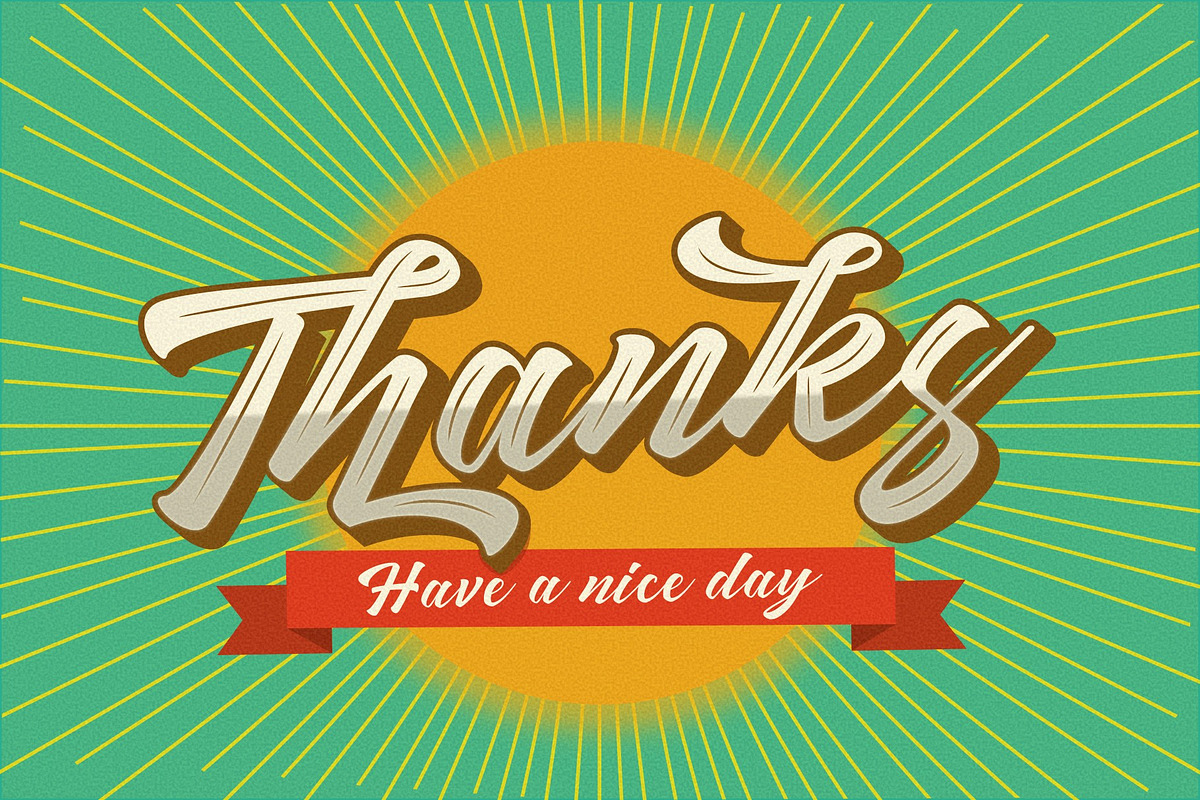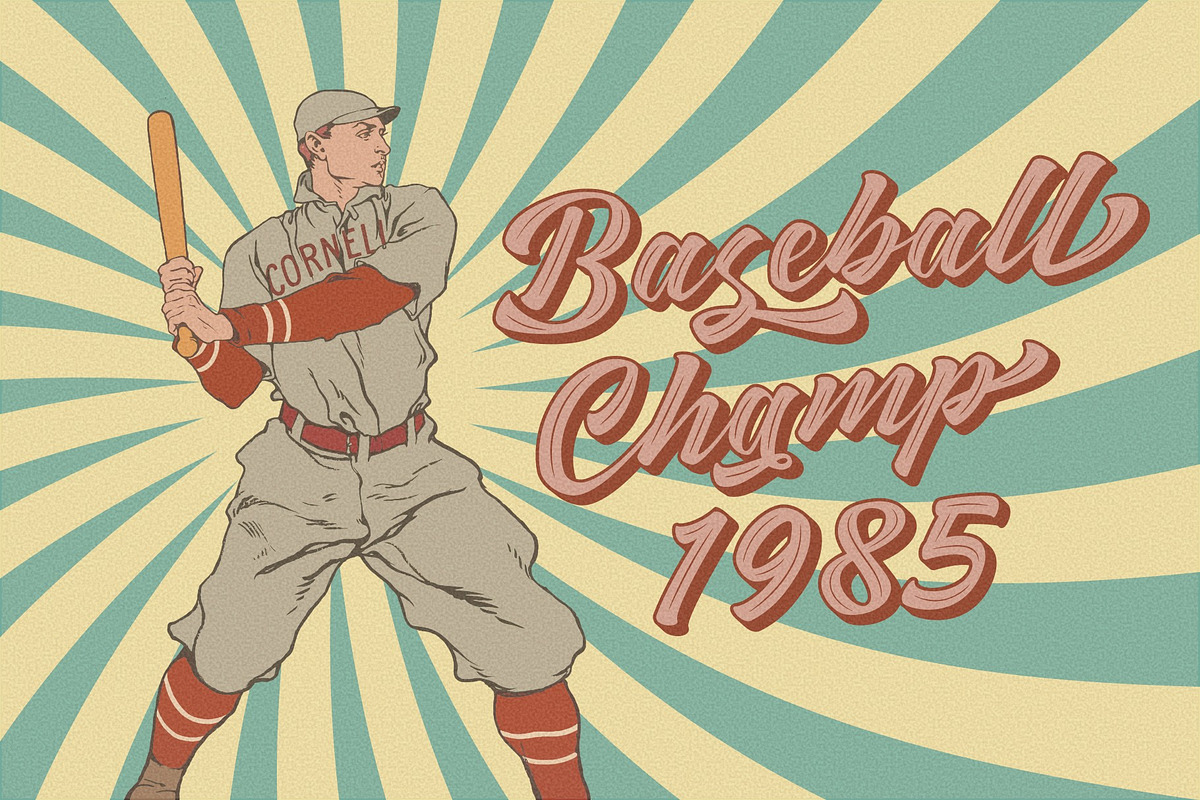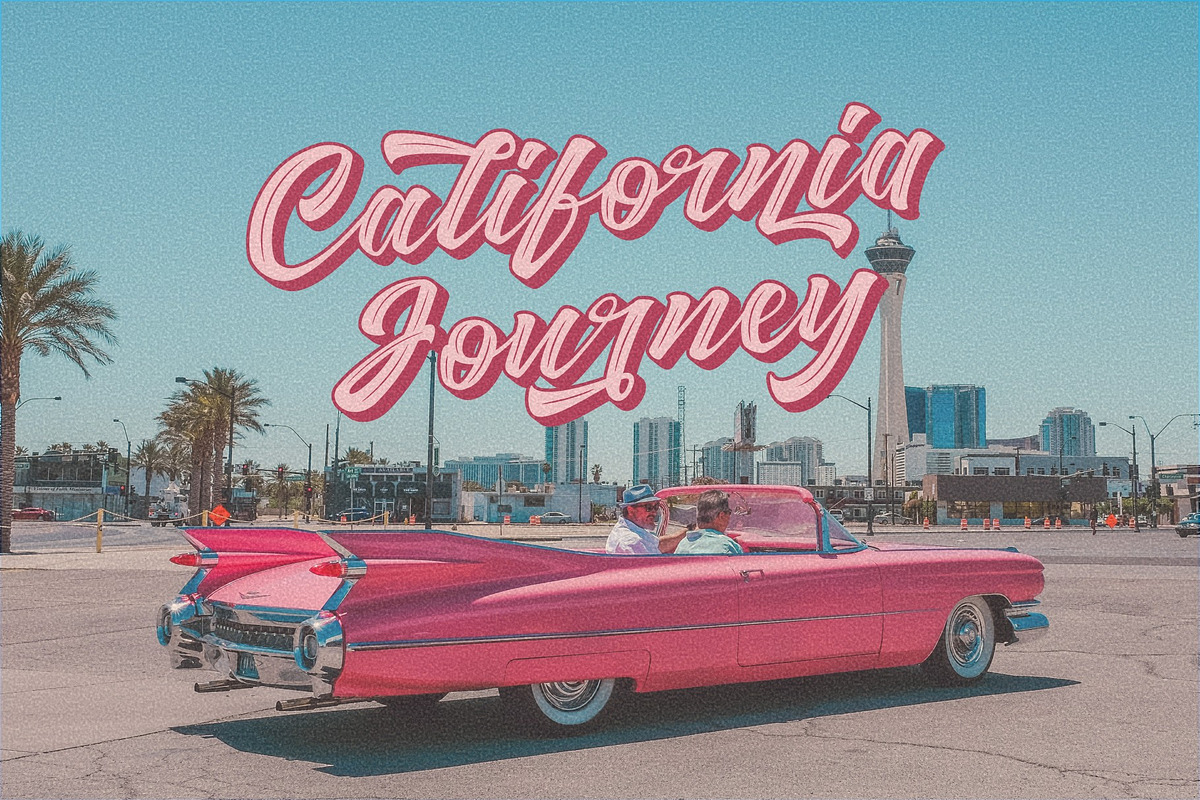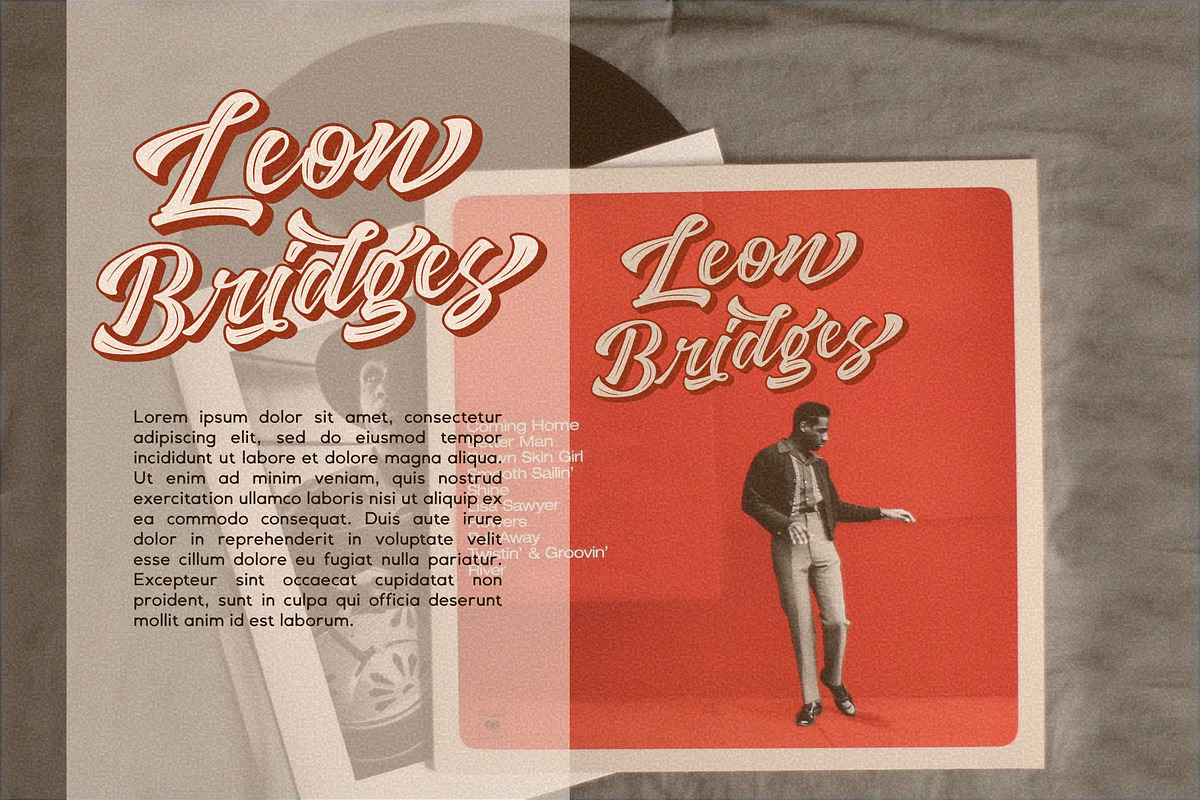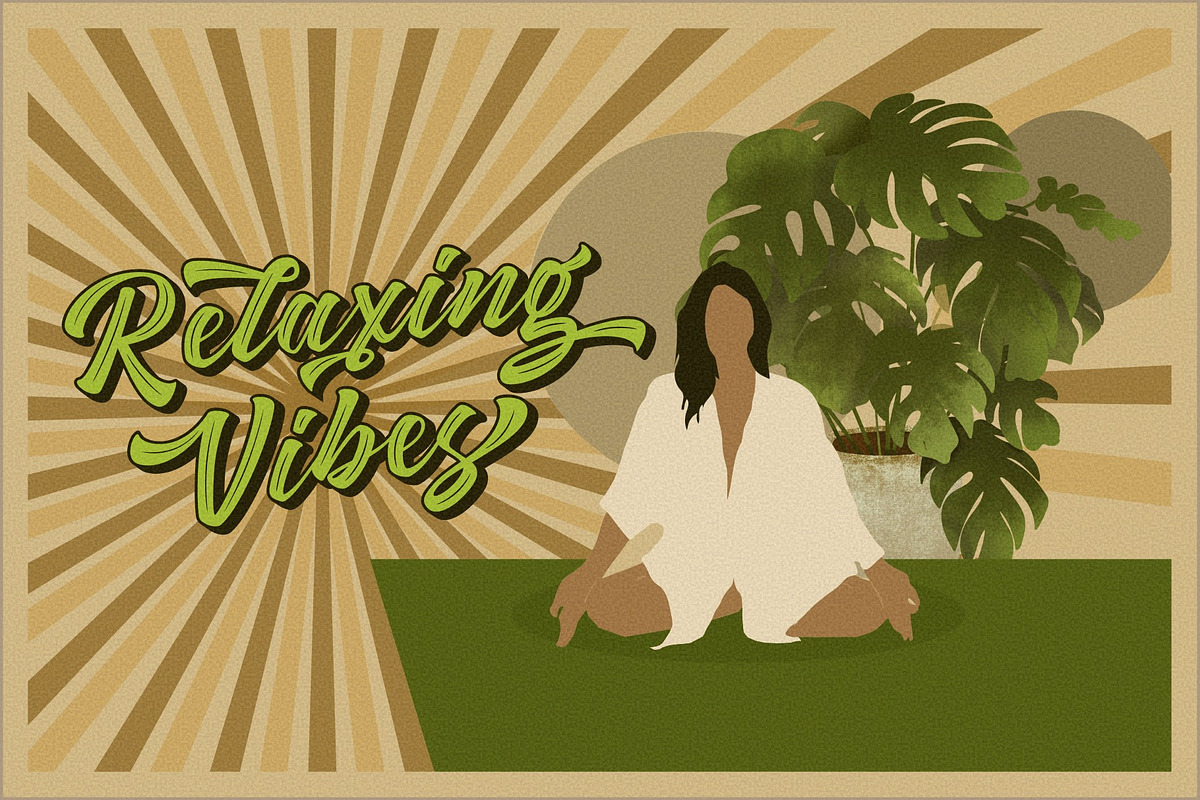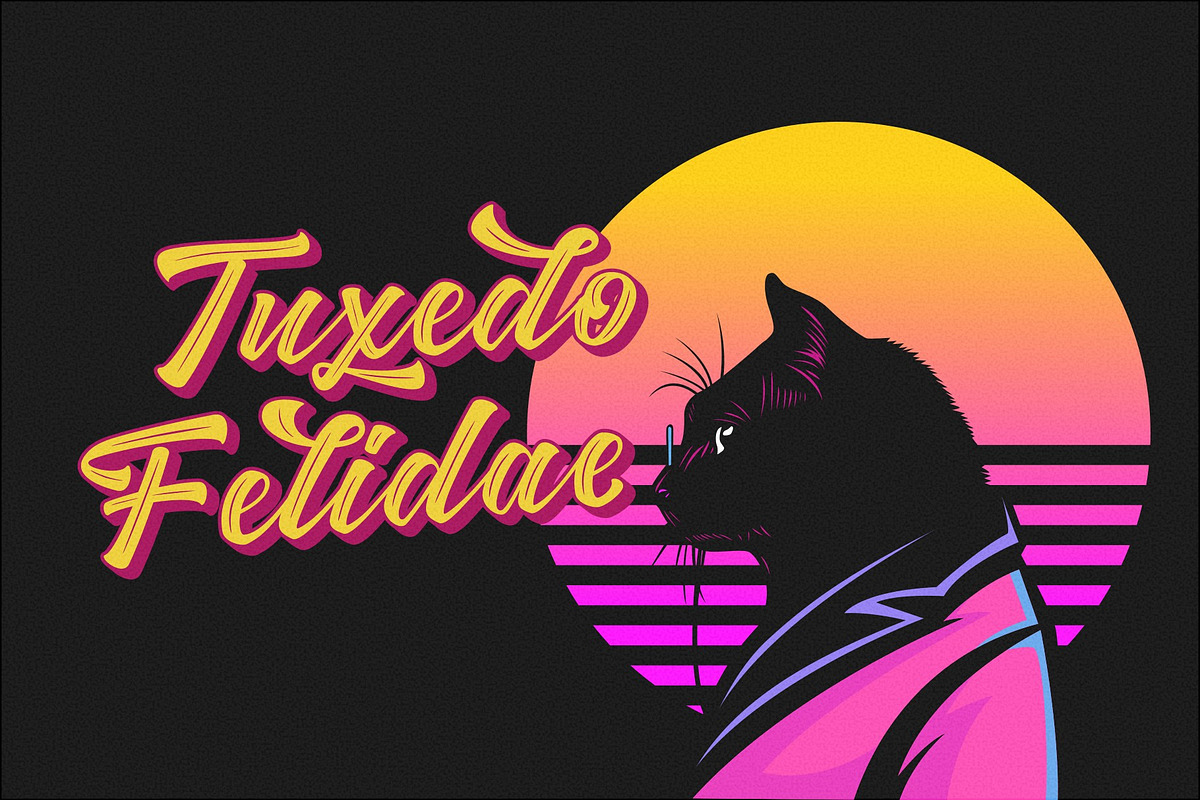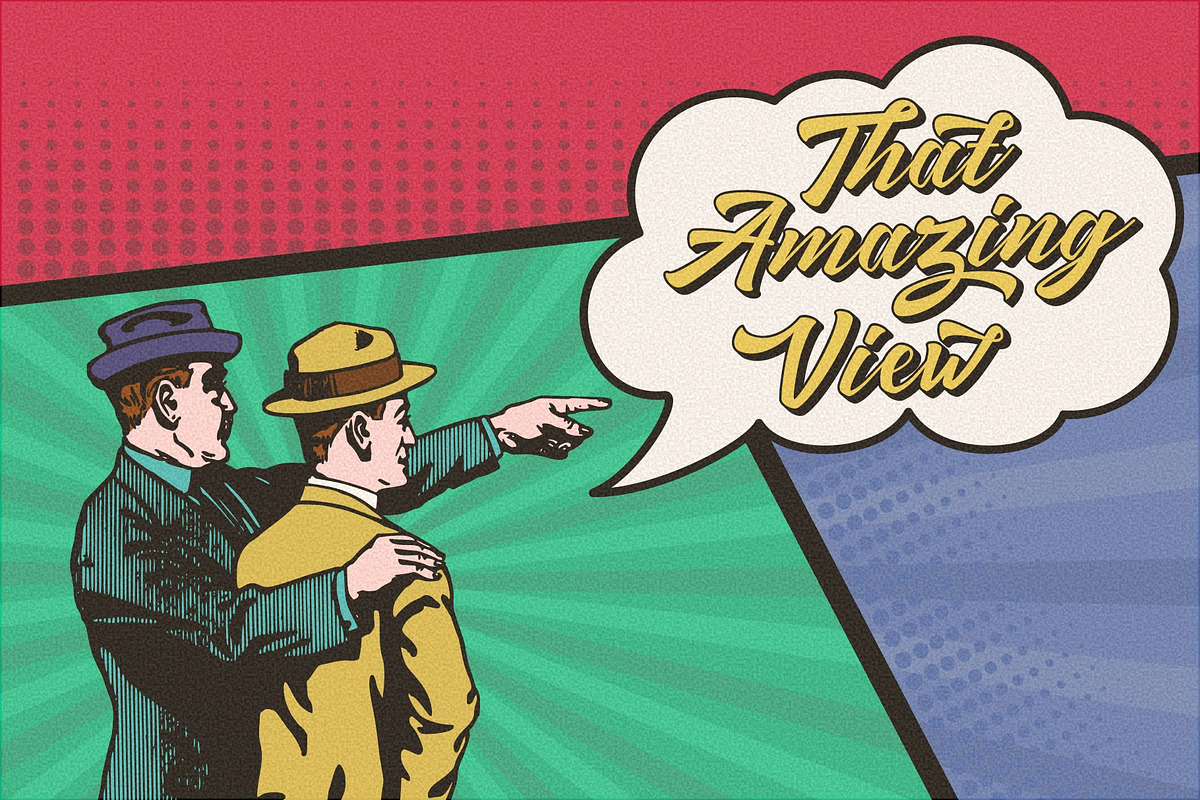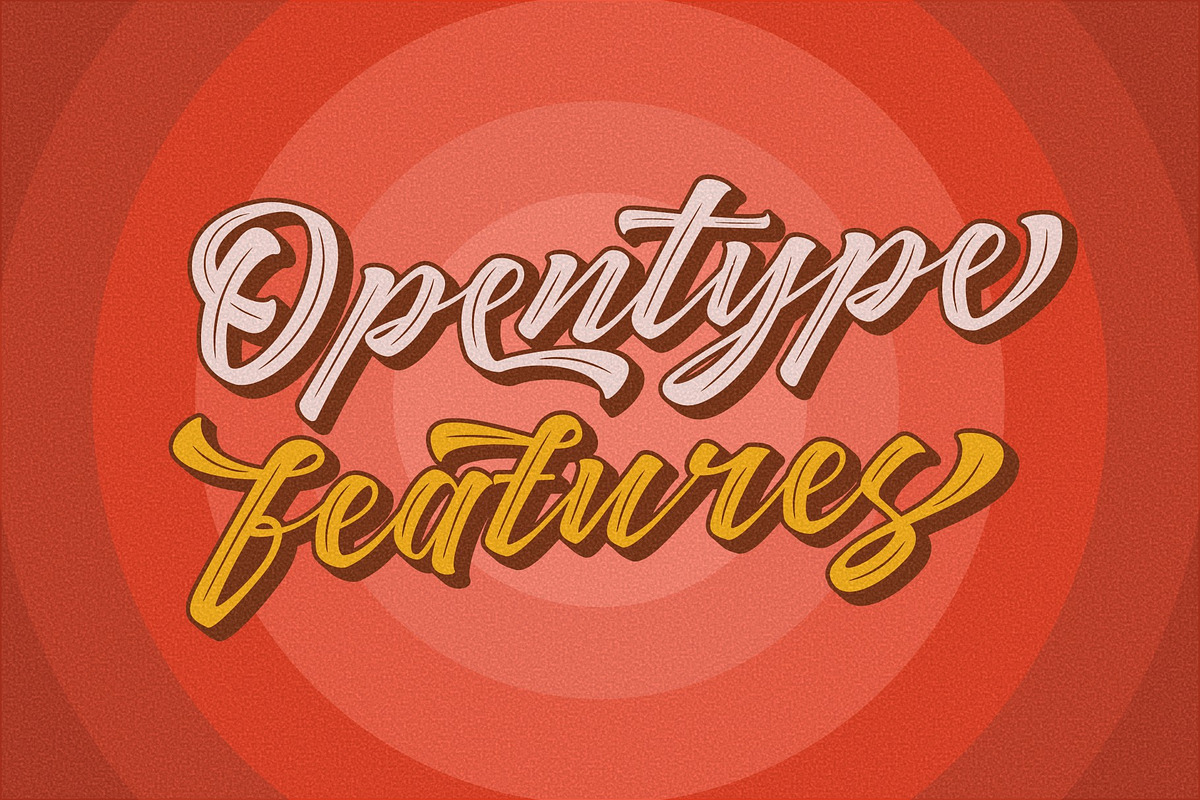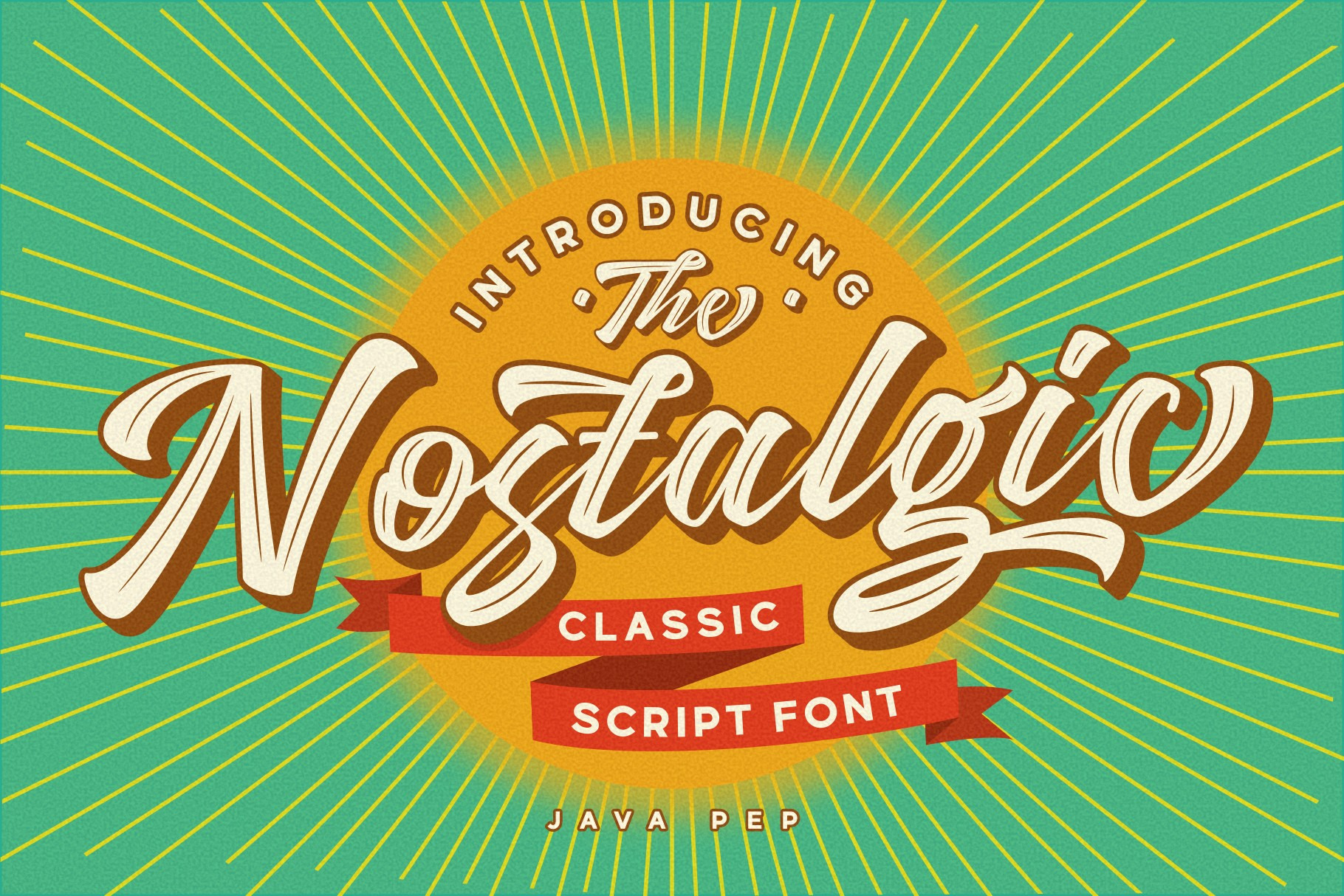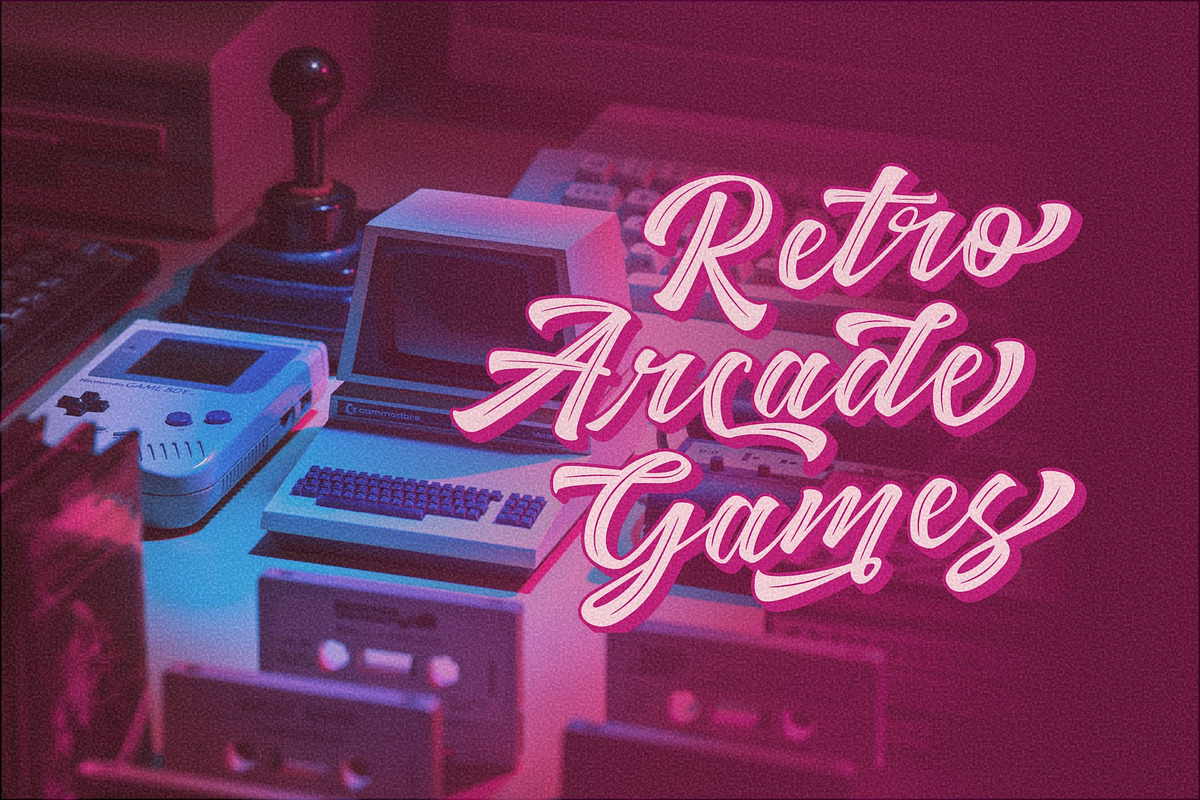
Nostalgic - Classic font style
Proudly present a classic font style called Nostalgic, to add to that impression, the Nostalgic font comes with engraved strokes in every letter and shadow feature. Nostalgic font also has a lot of alternate glyphs and supports multilingual languages, This font is perfect for logos, advertising, publishing, headlines, poster, etc.